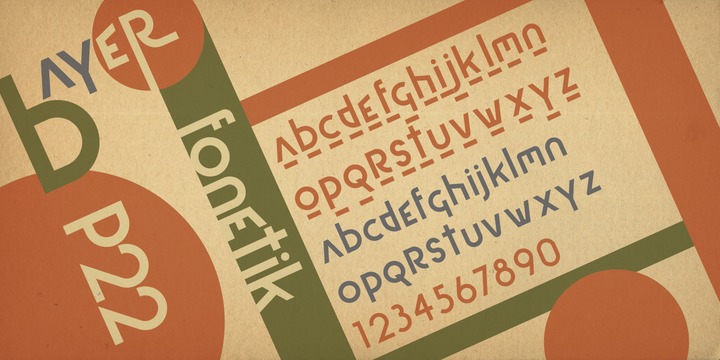
• P22 Bayer Fonetik™
P22 Bayer Fonetik is one of the fonts that make up the P22 Bauhaus Set.
The P22 Bauhaus Set includes three type faces designed by Herbert Bayer, including the famous Universal font most commonly associated with the Bauhaus school. A collection of 72 graphic elements inspired by various Bauhaus works rounds out this collection. This set is authorized by the Herbert Bayer Estate. For more typefaces from the Bauhaus, see our Josef Albers set.